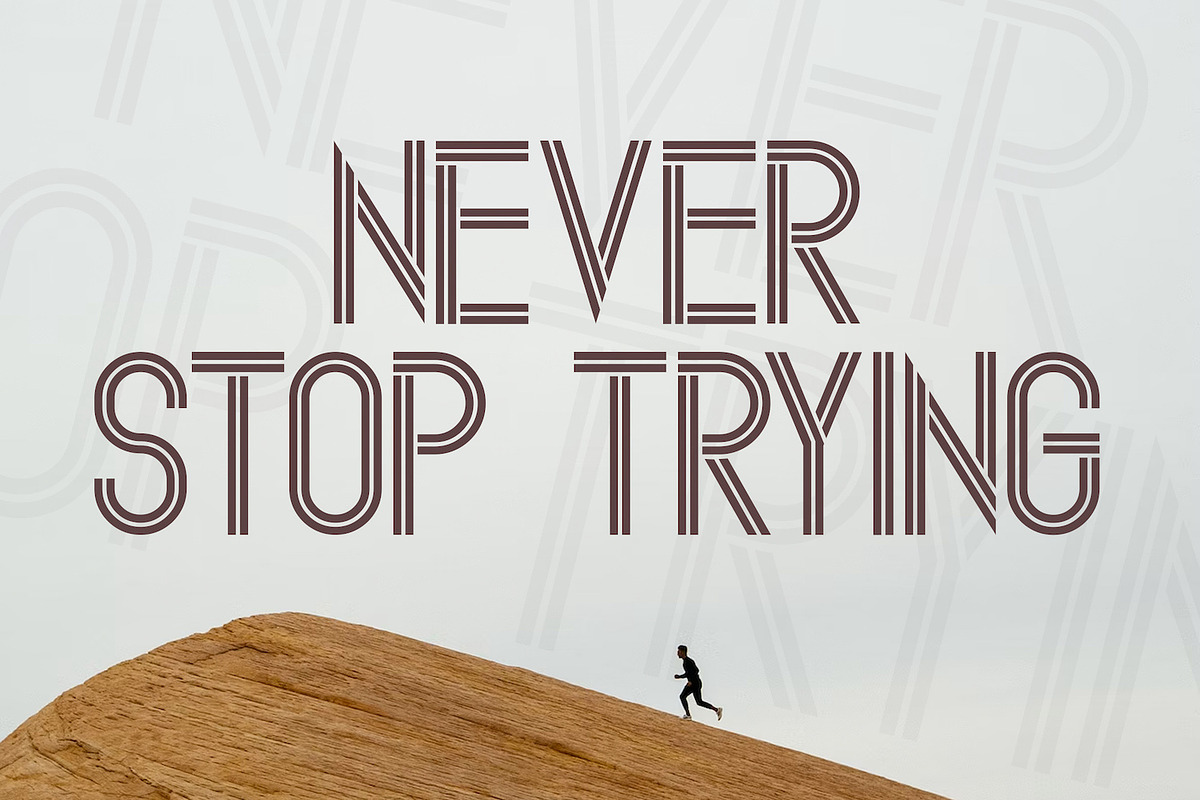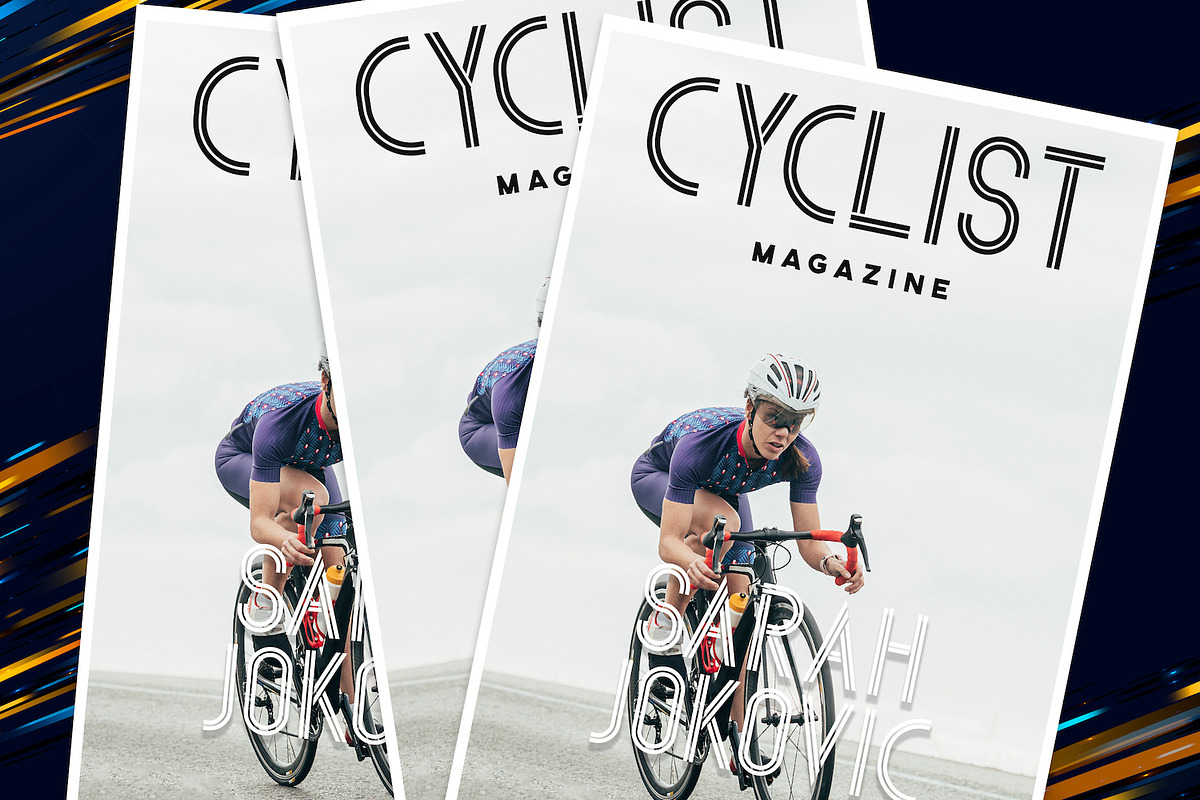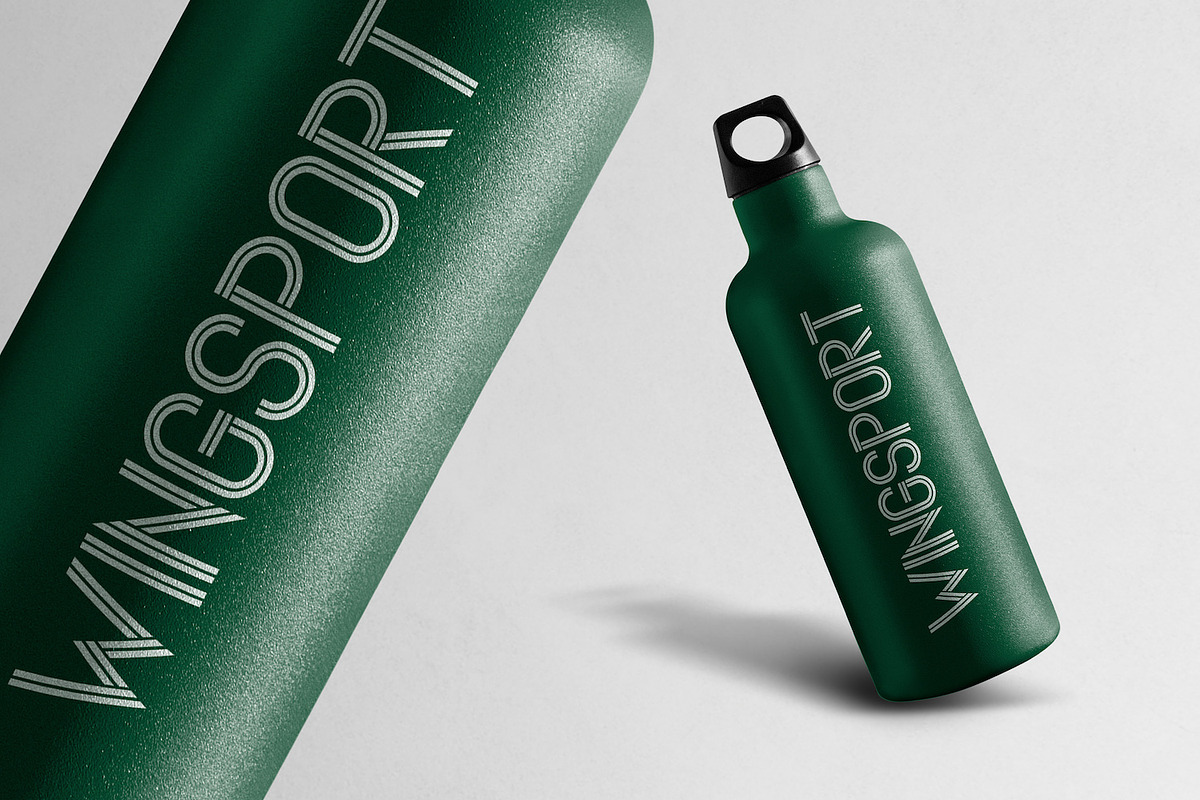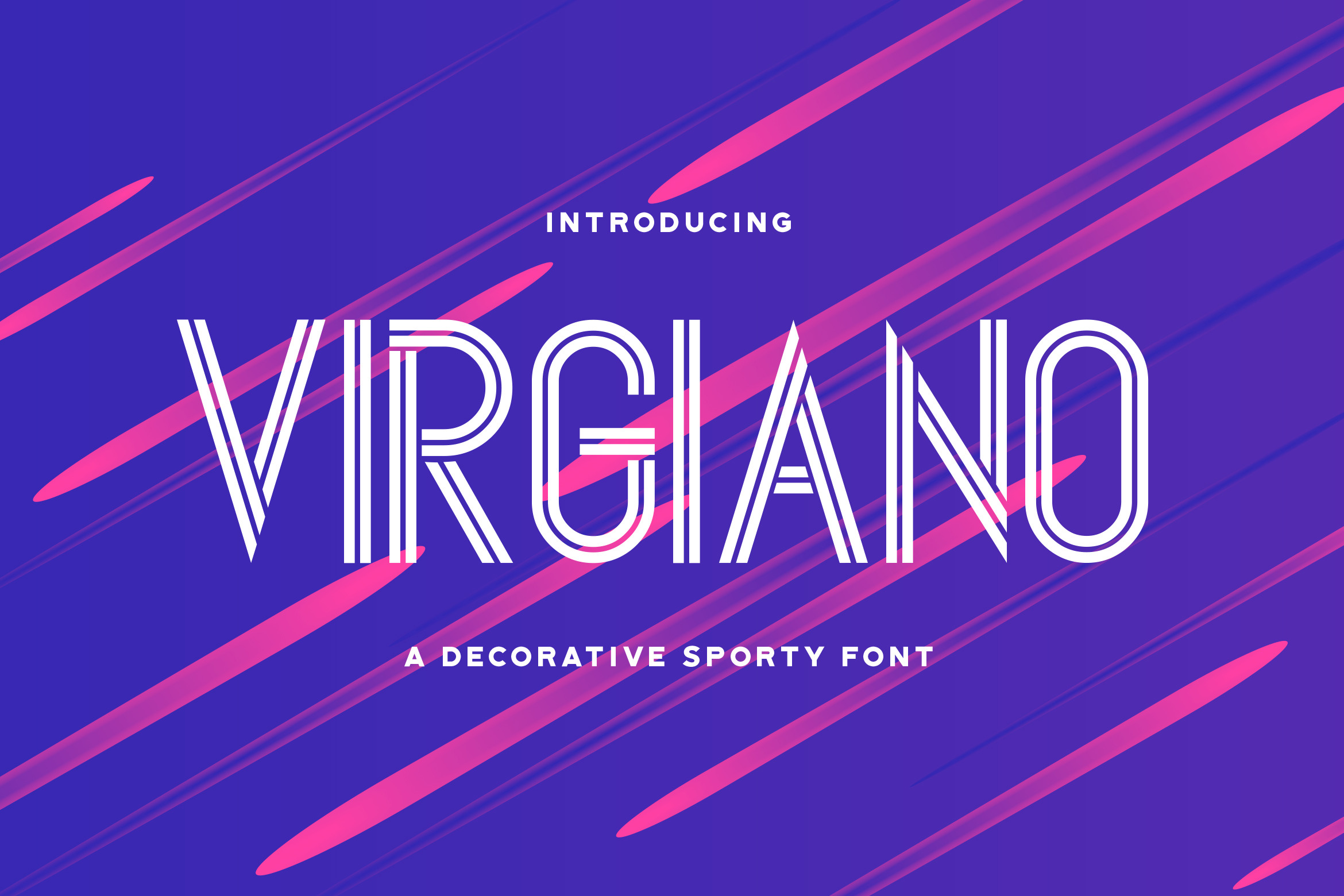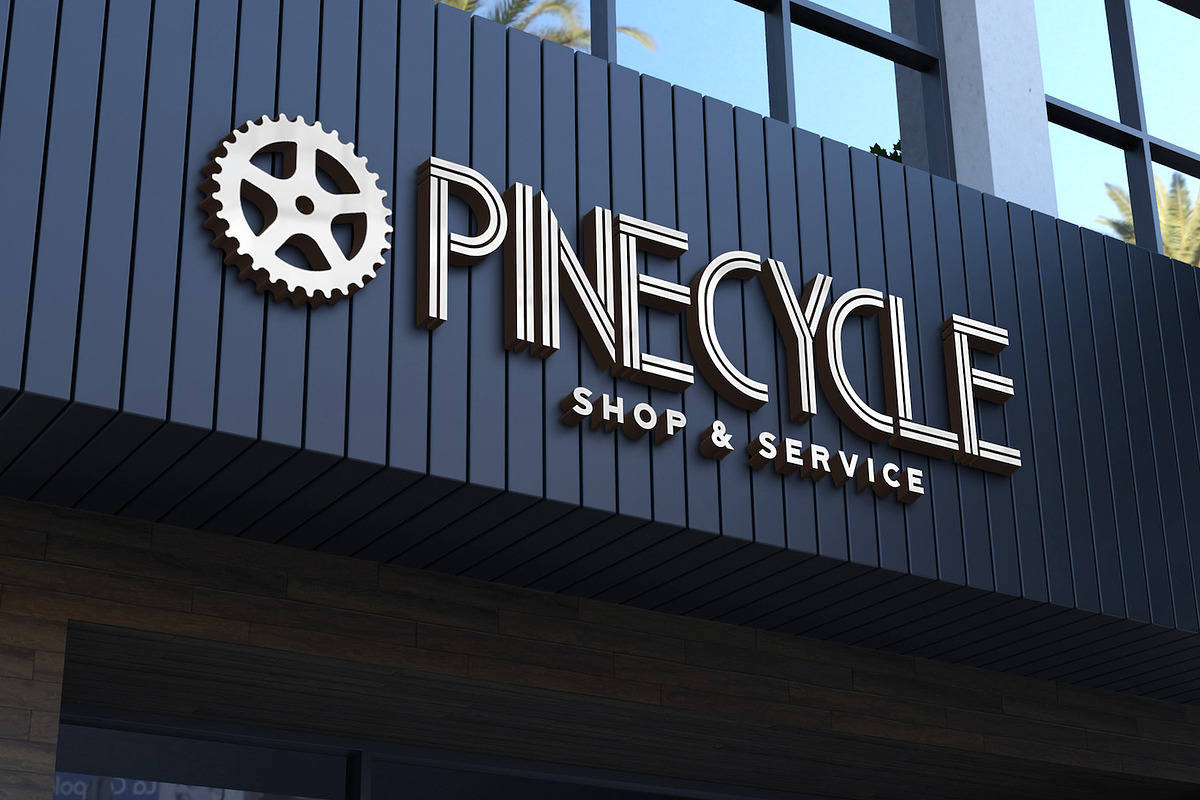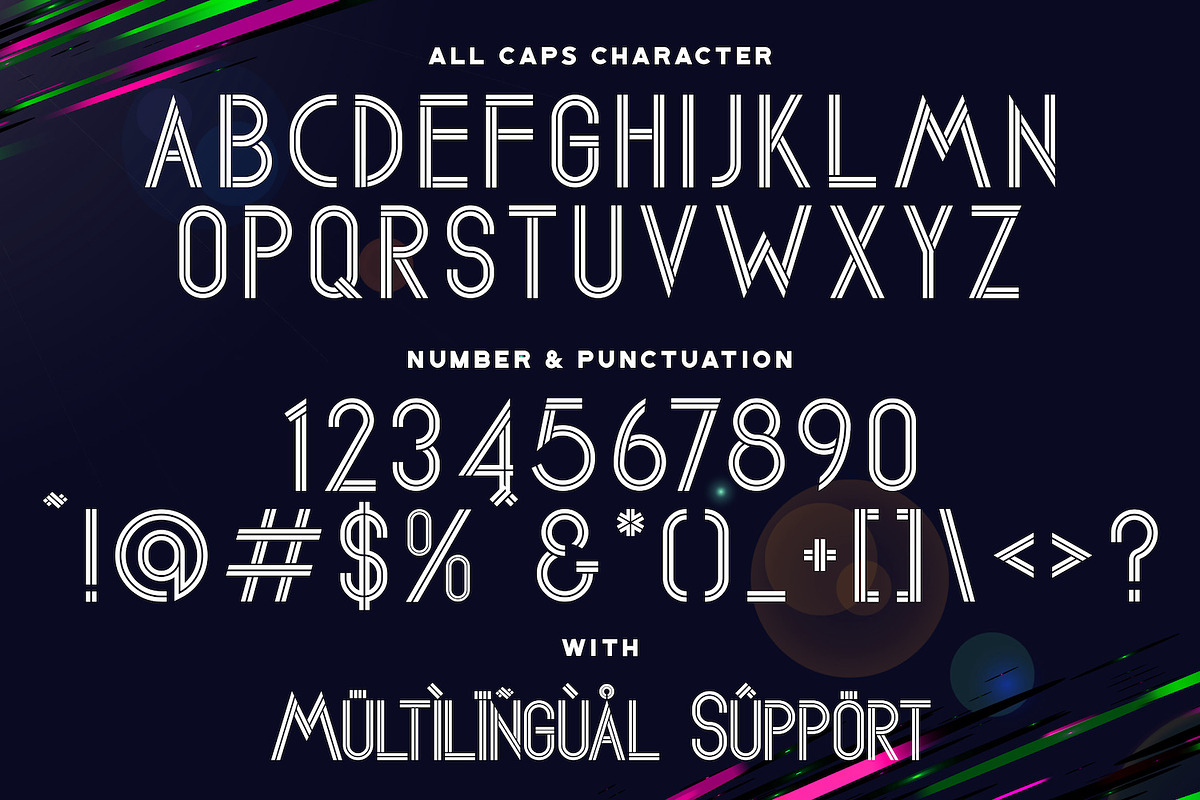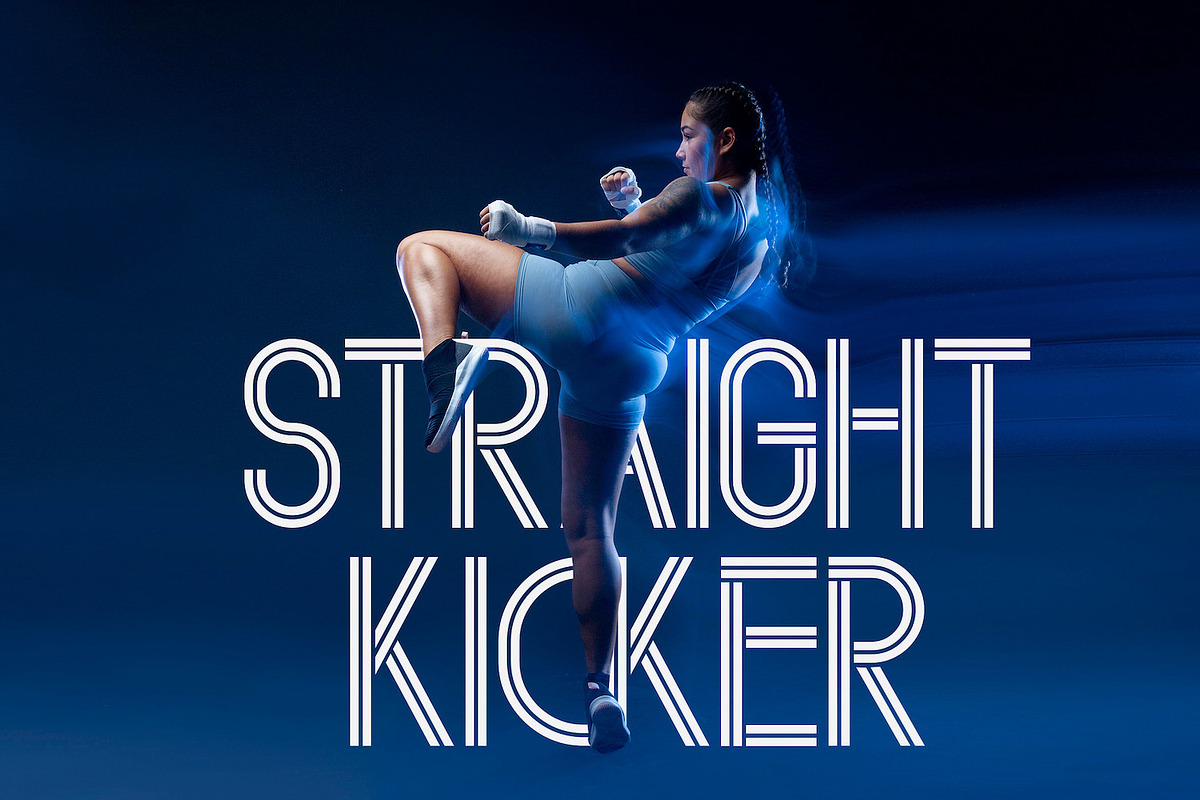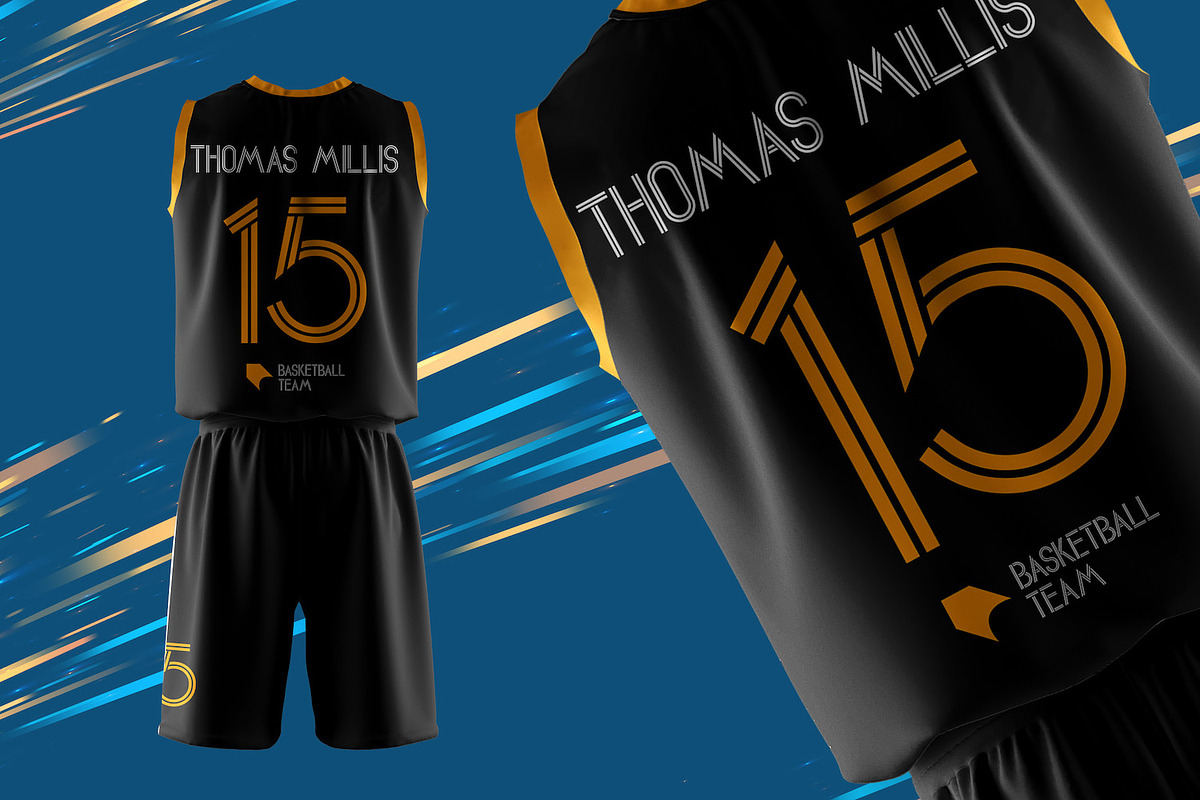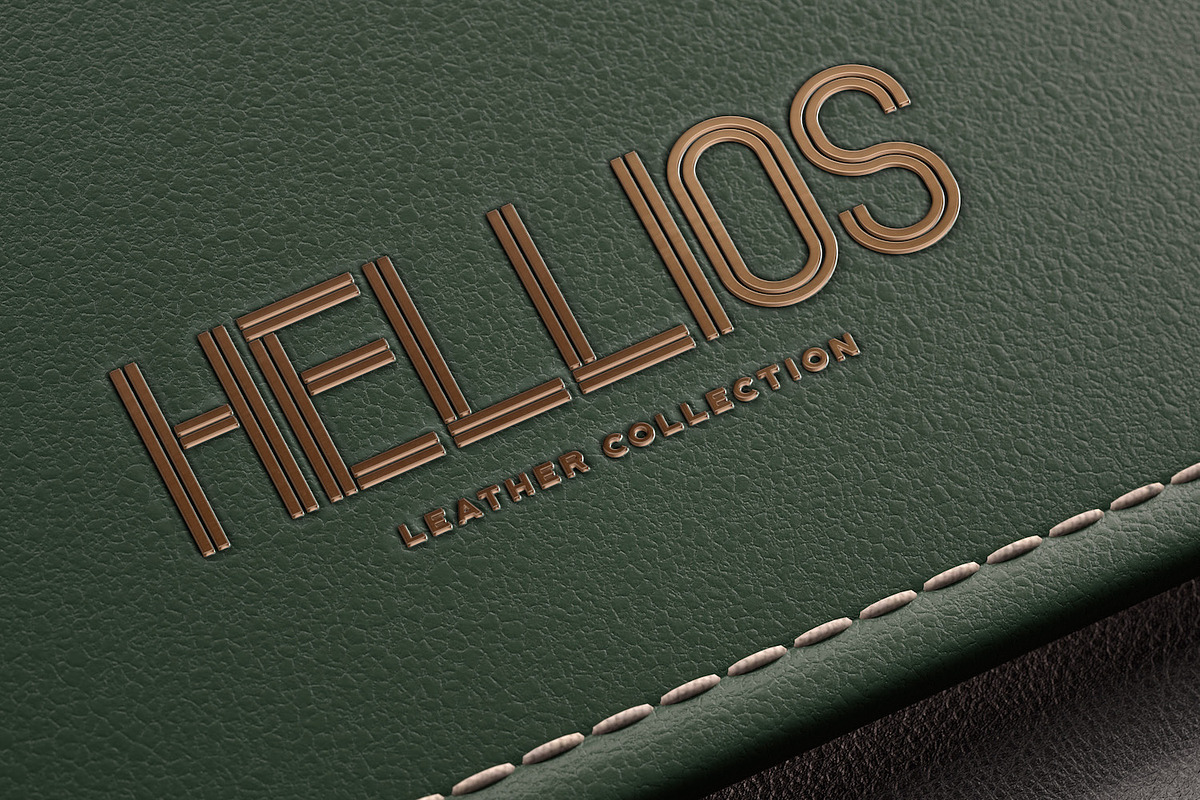
Virgiano - Decorative Sporty Font
Introducing Virgiano - Decorative Sporty Font
Virgiano is a sporty and modern display font. This playfully conceptual typeface font will look truly outstanding in a wide range of contexts. This font is very suitable for your any sports needs, such as: Football Jersey, Basketball Jersey, Soccer Jersey, and Other Sports purpose.